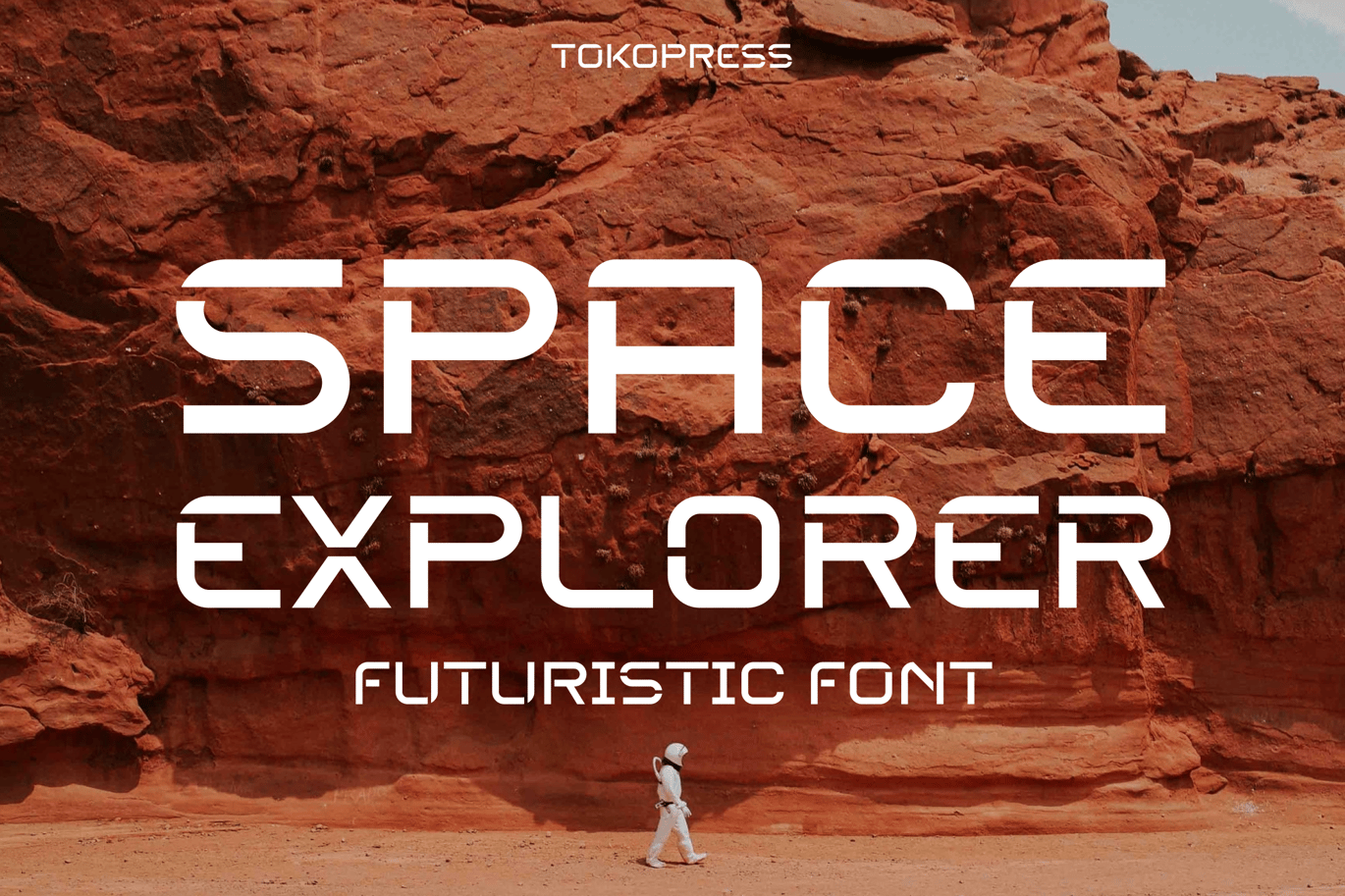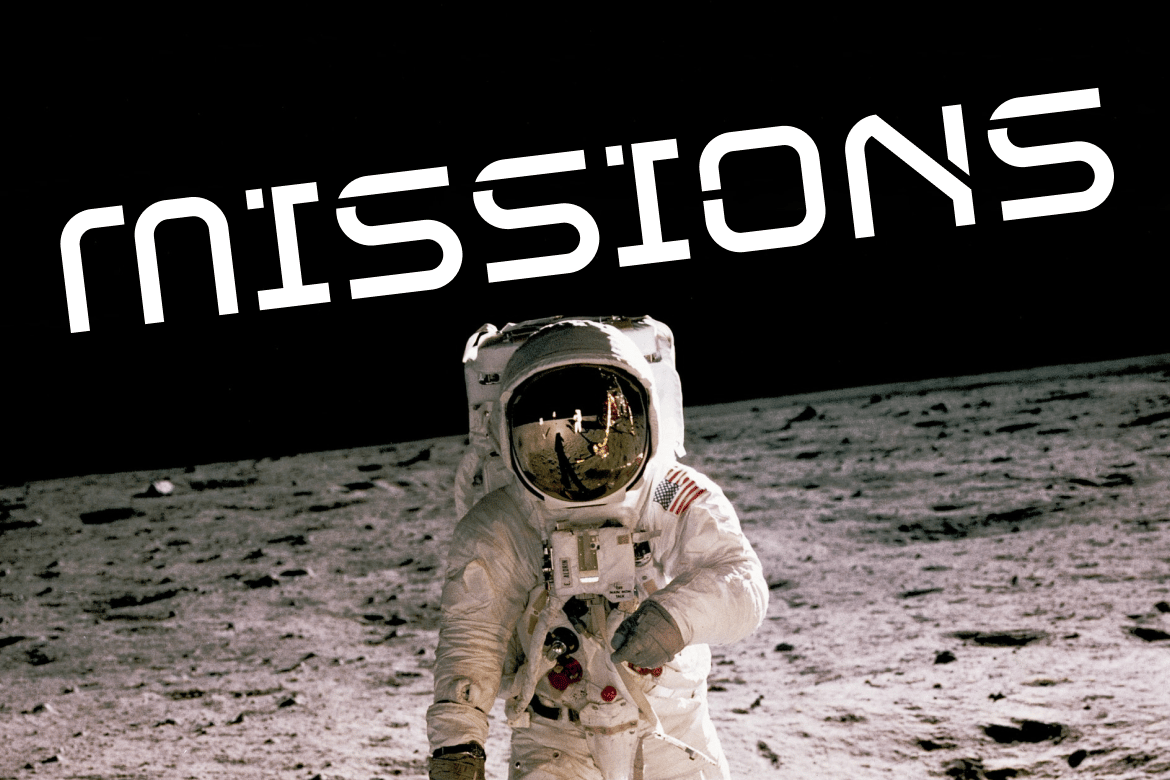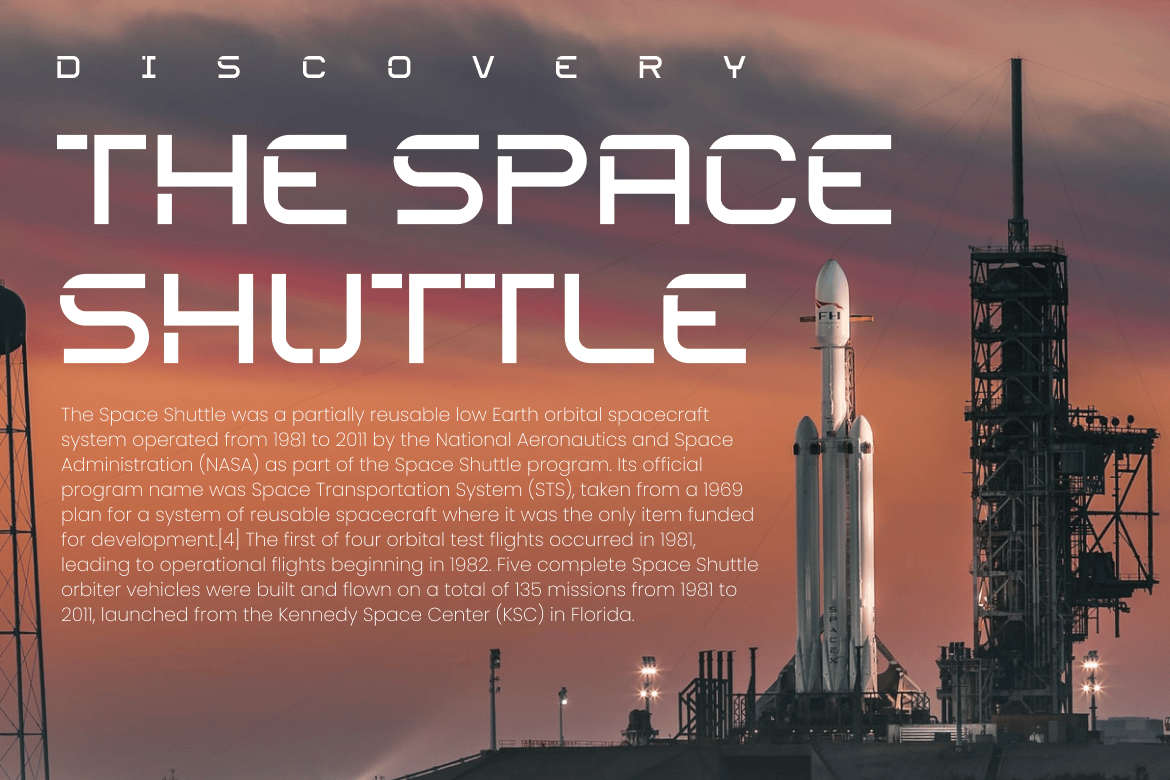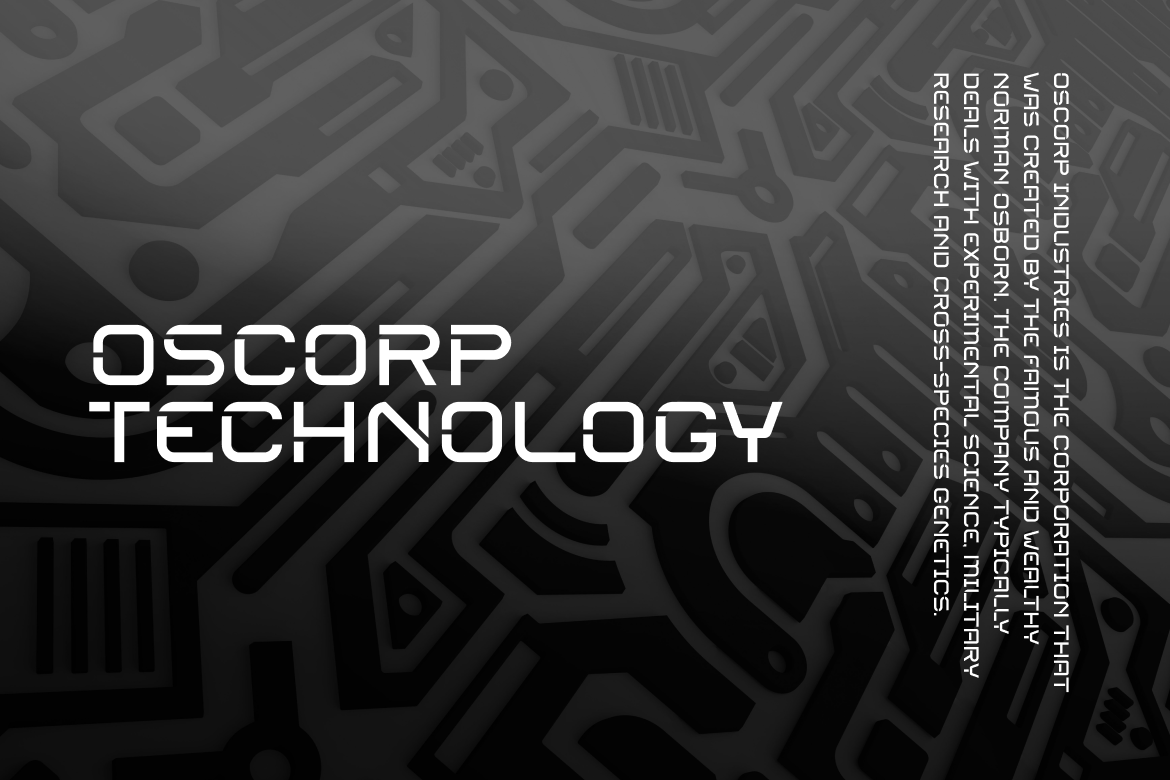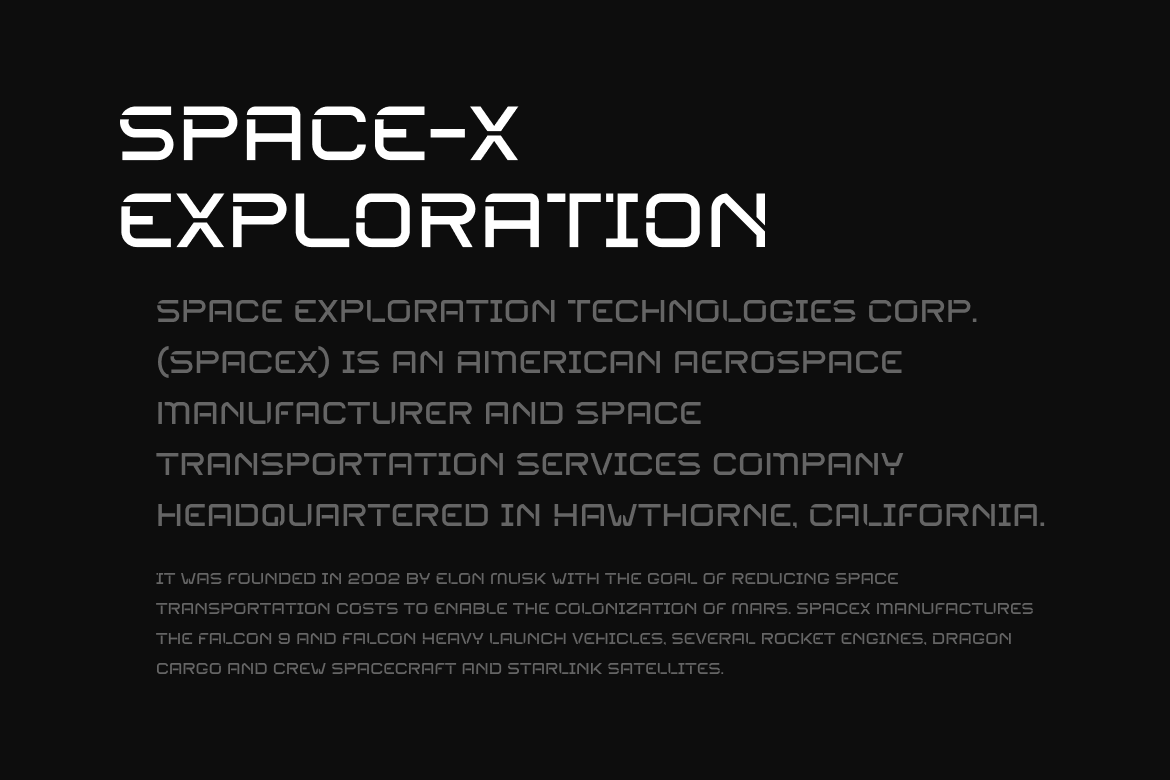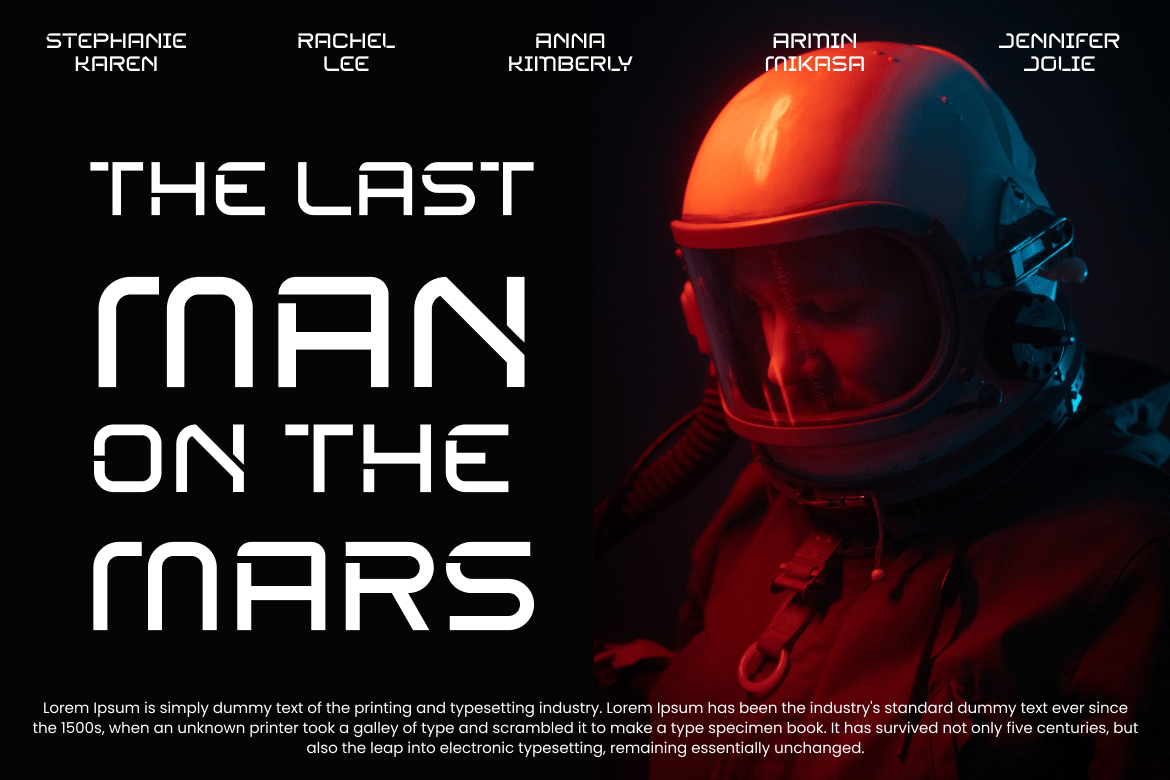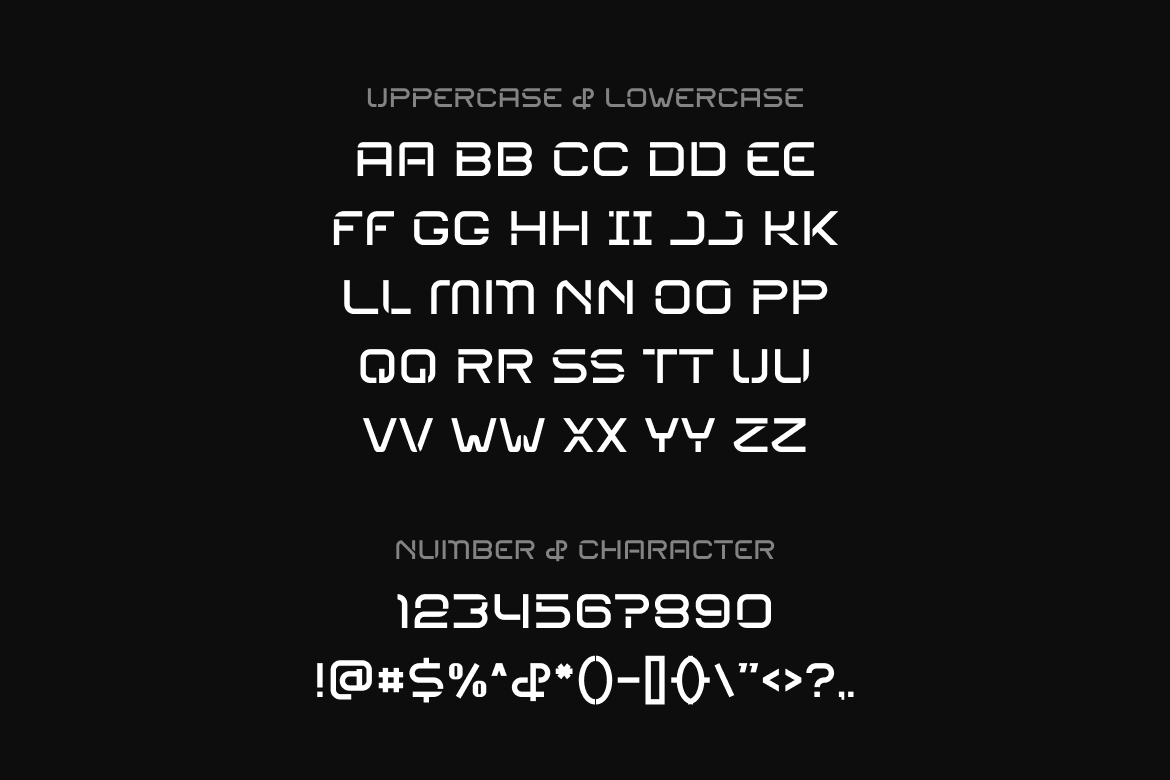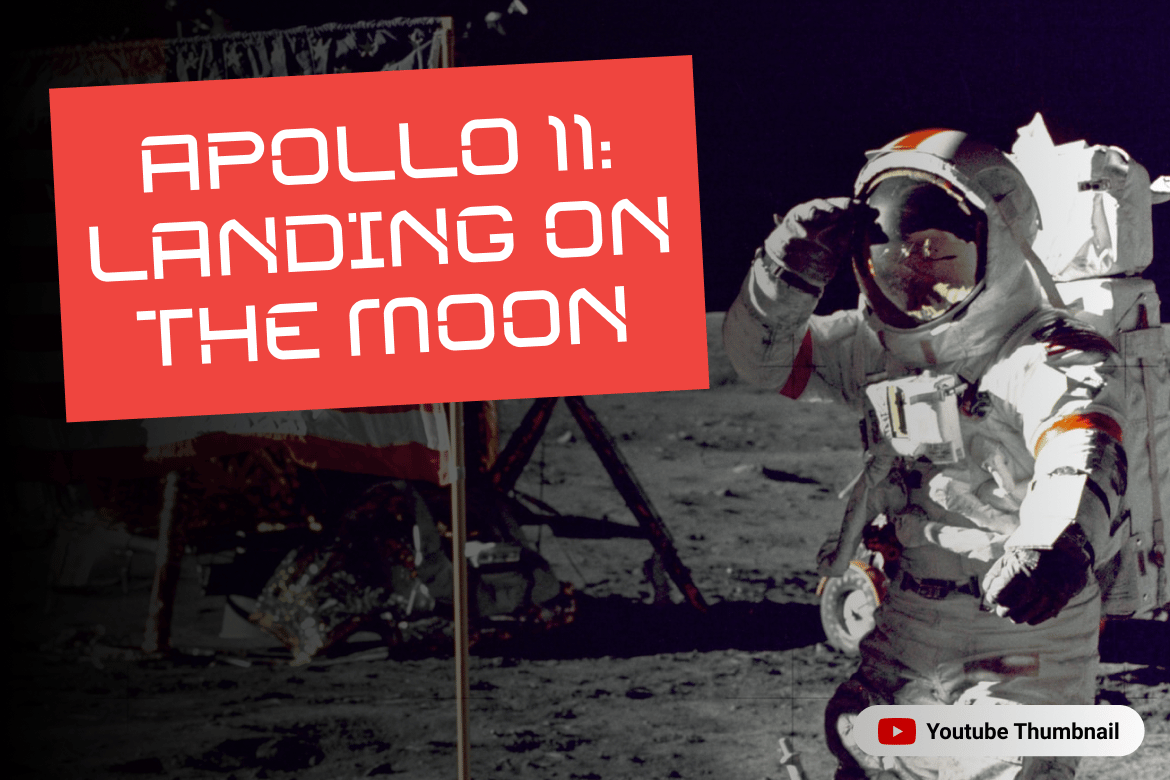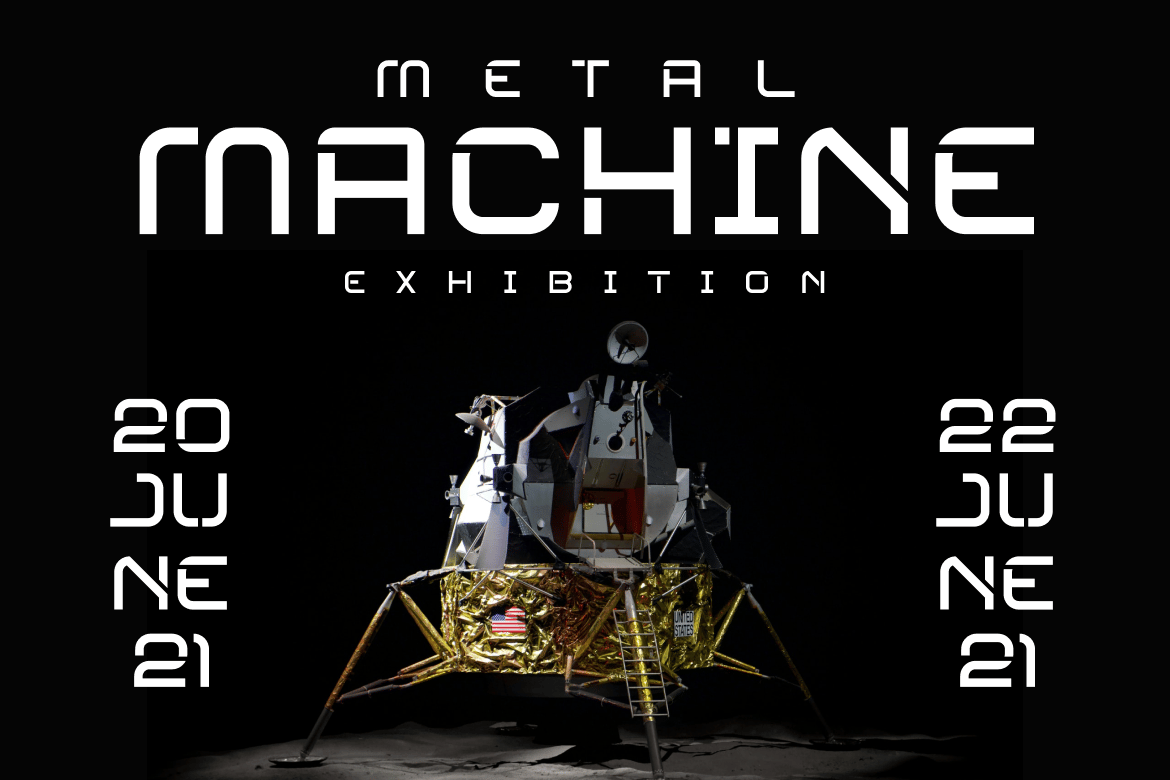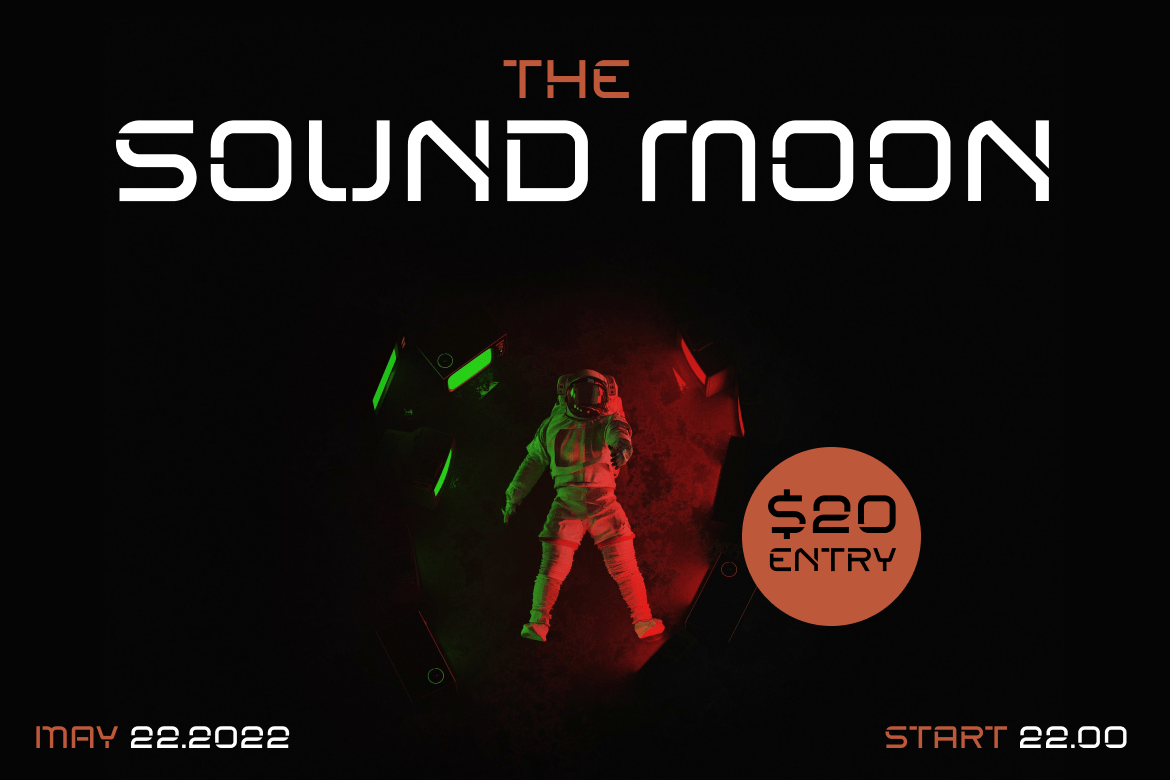
SPACE EXPLORER – futuristic font
Vast outer space is there to be explore. The limit is our imagination.
Suit perfectly for future and science segmented magazine, poster, movie title, music poster, youtube covers, youtube thumbnails, social media page covers and so on…